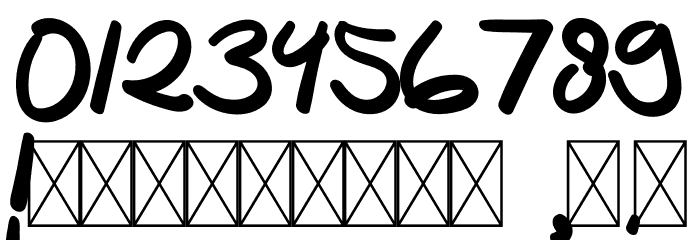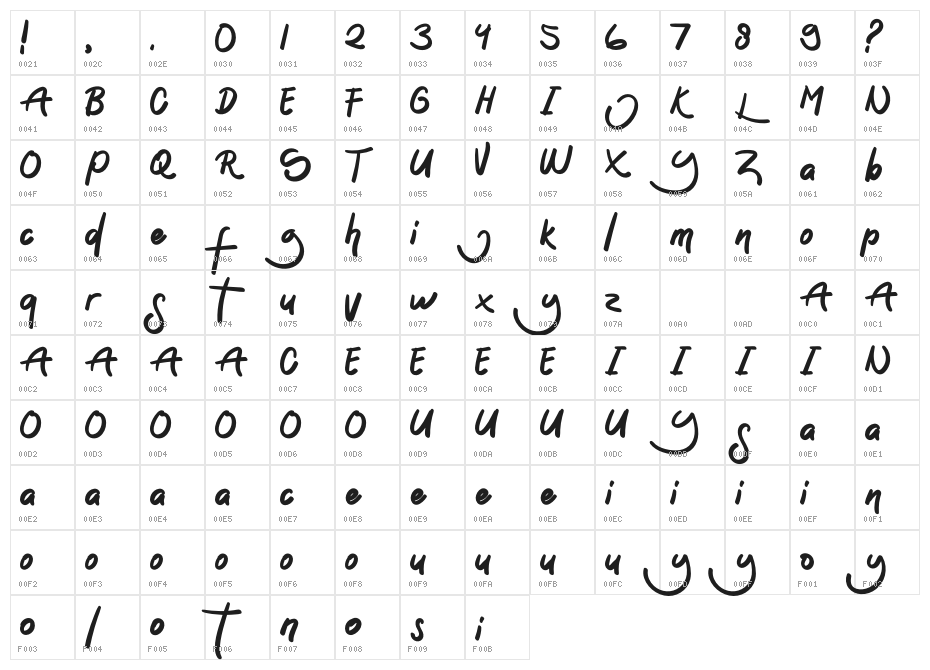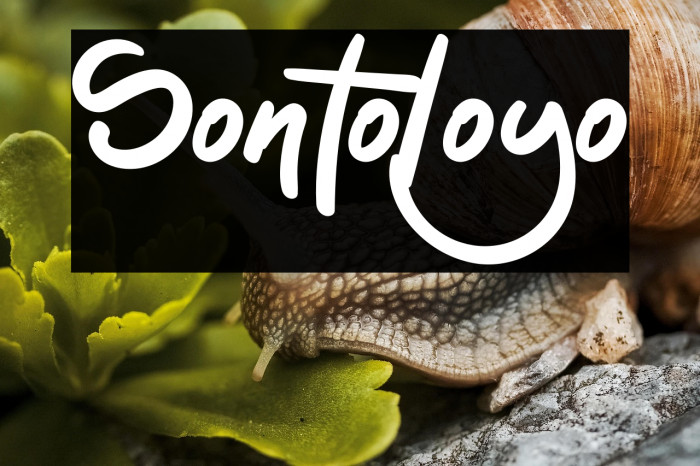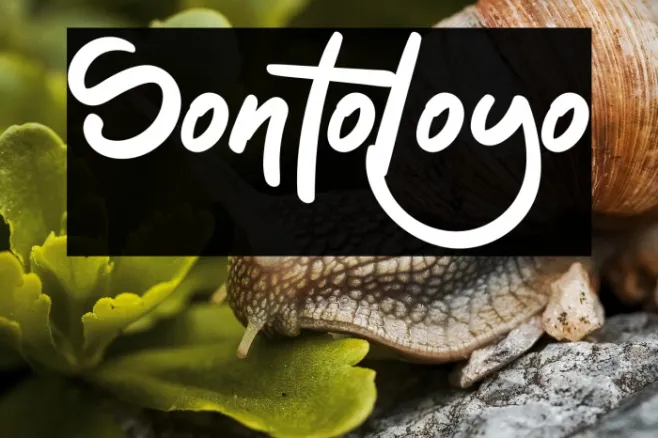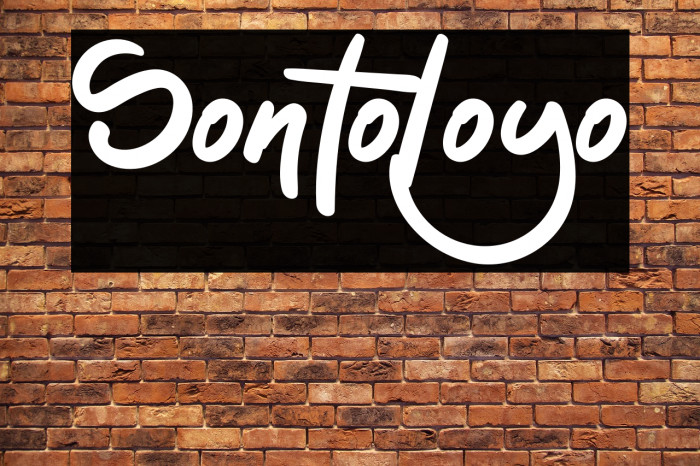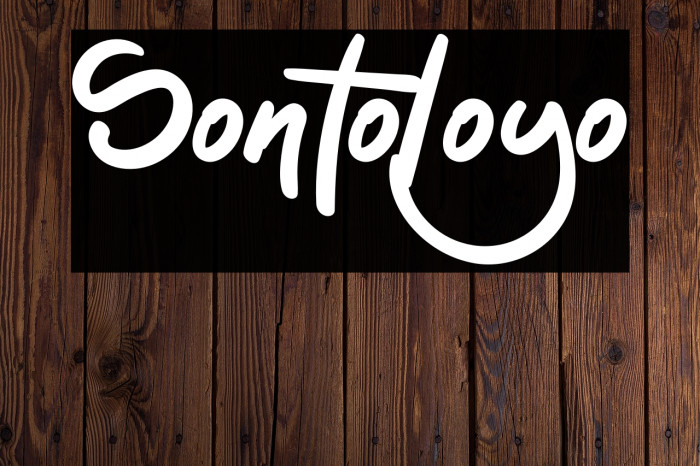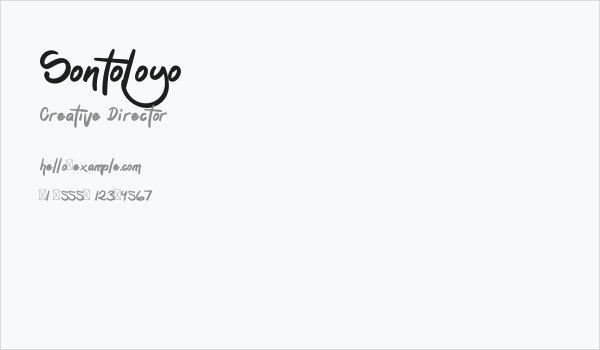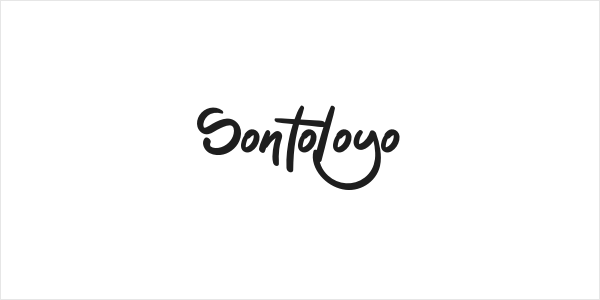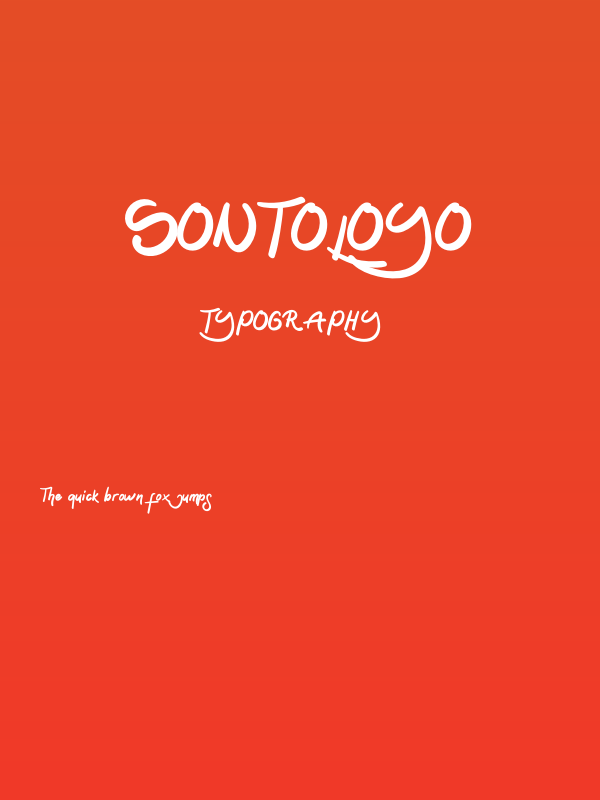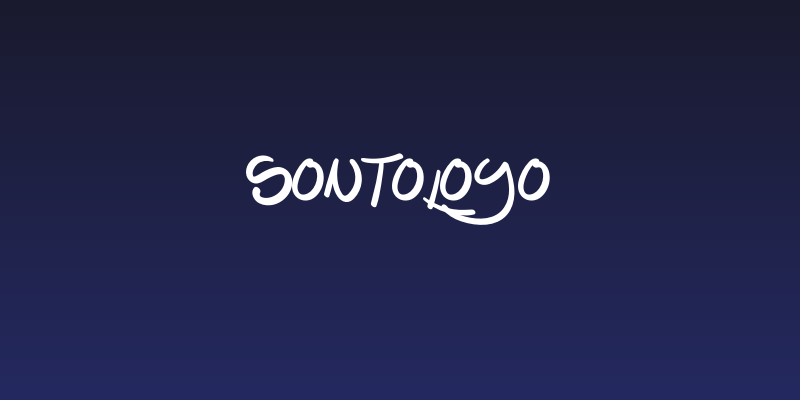
Sontoloyo Font
Sontoloyo Description
This font features a lively and dynamic script style, characterized by its fluid and cursive letterforms. The uppercase letters are bold and expressive, with a playful flair that adds a sense of movement and energy. The lowercase letters maintain a consistent flow, with rounded edges and smooth curves that enhance readability. The numbers are equally bold, maintaining the same playful and energetic style. Special characters are creatively integrated, adding to the font's overall whimsical appearance. This font is ideal for projects that require a personal and informal touch, such as invitations, greeting cards, or creative branding.
| Proposed Projects | Ideal for invitations, greeting cards, creative branding, and informal designs. |